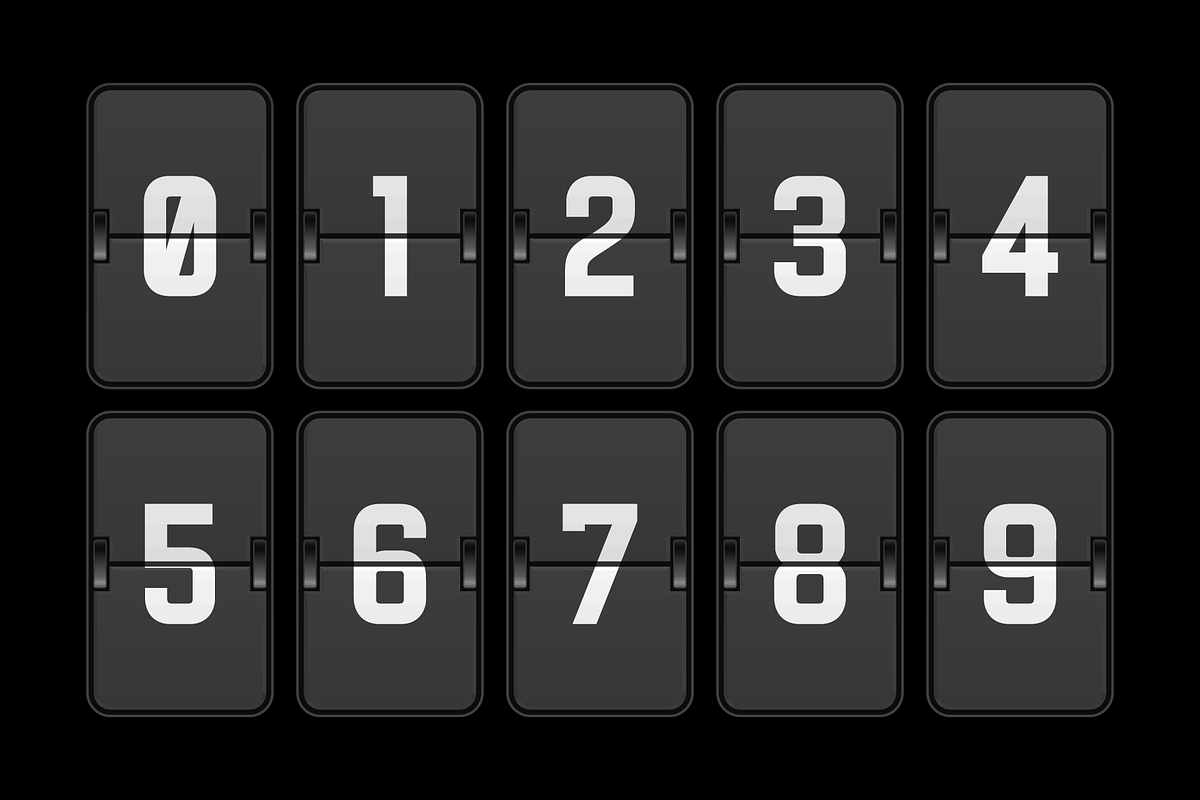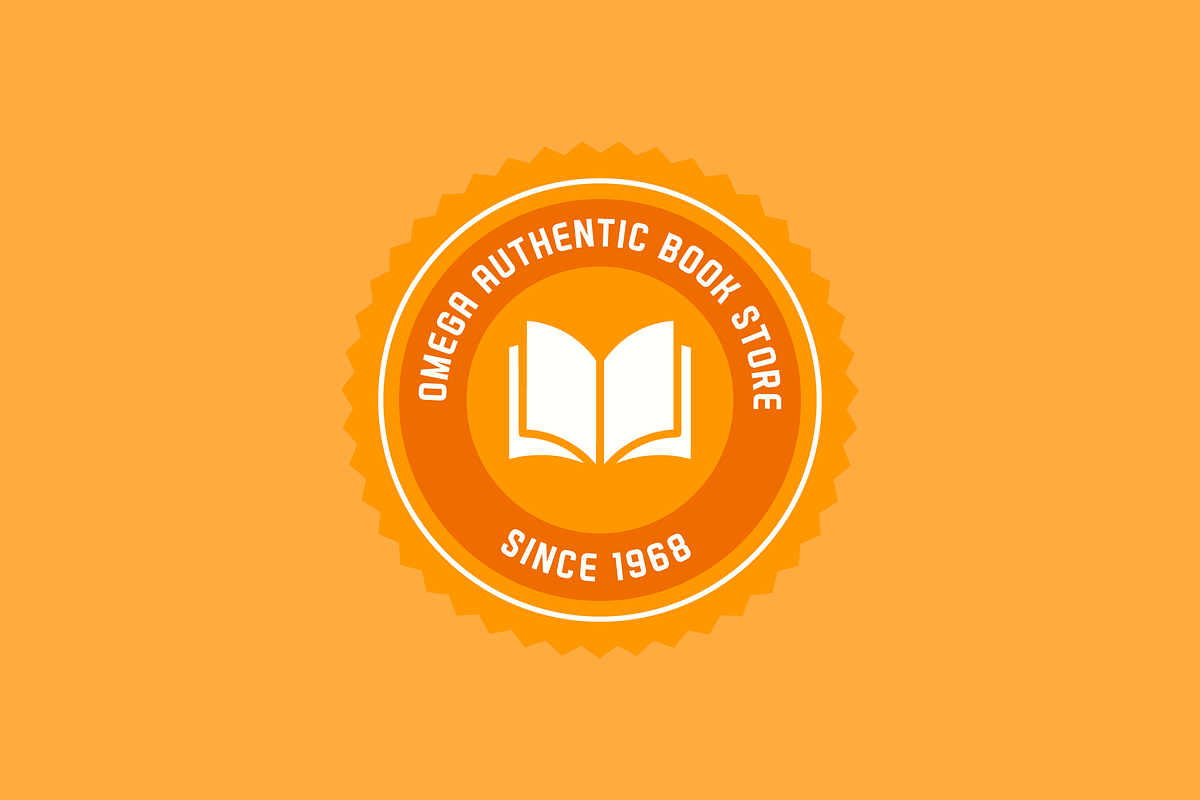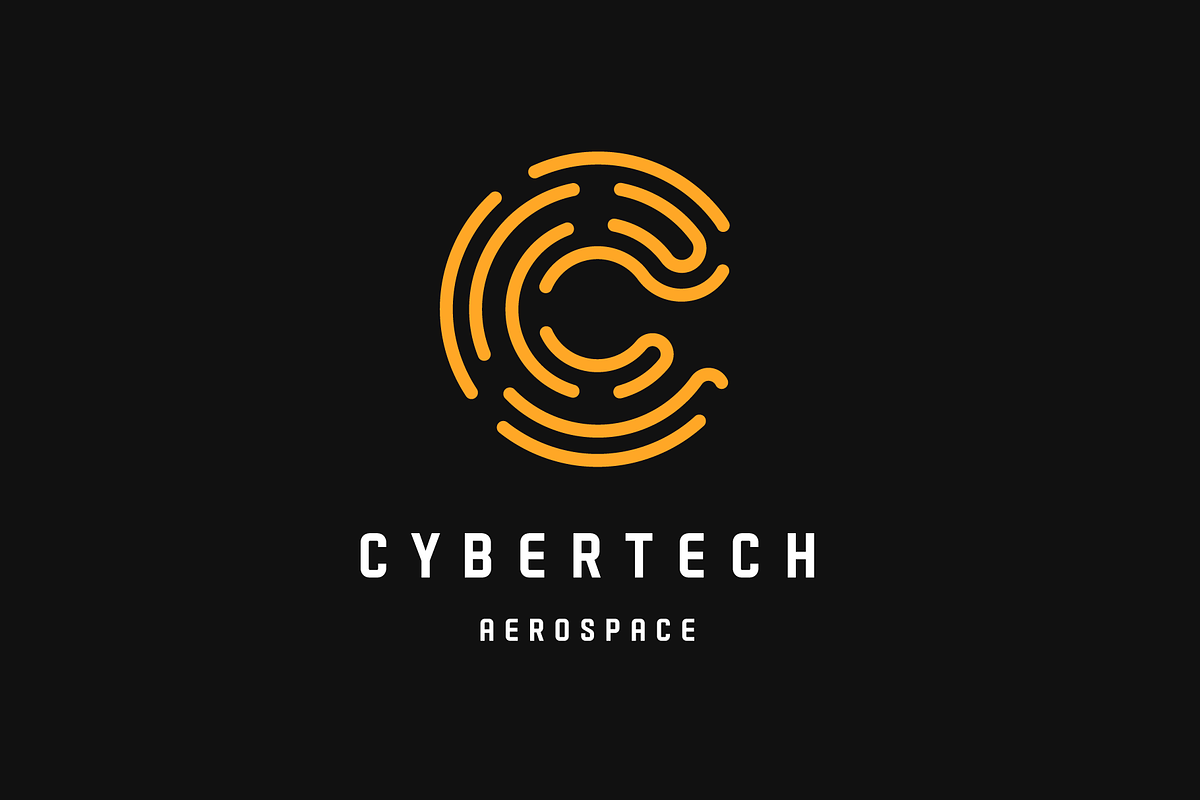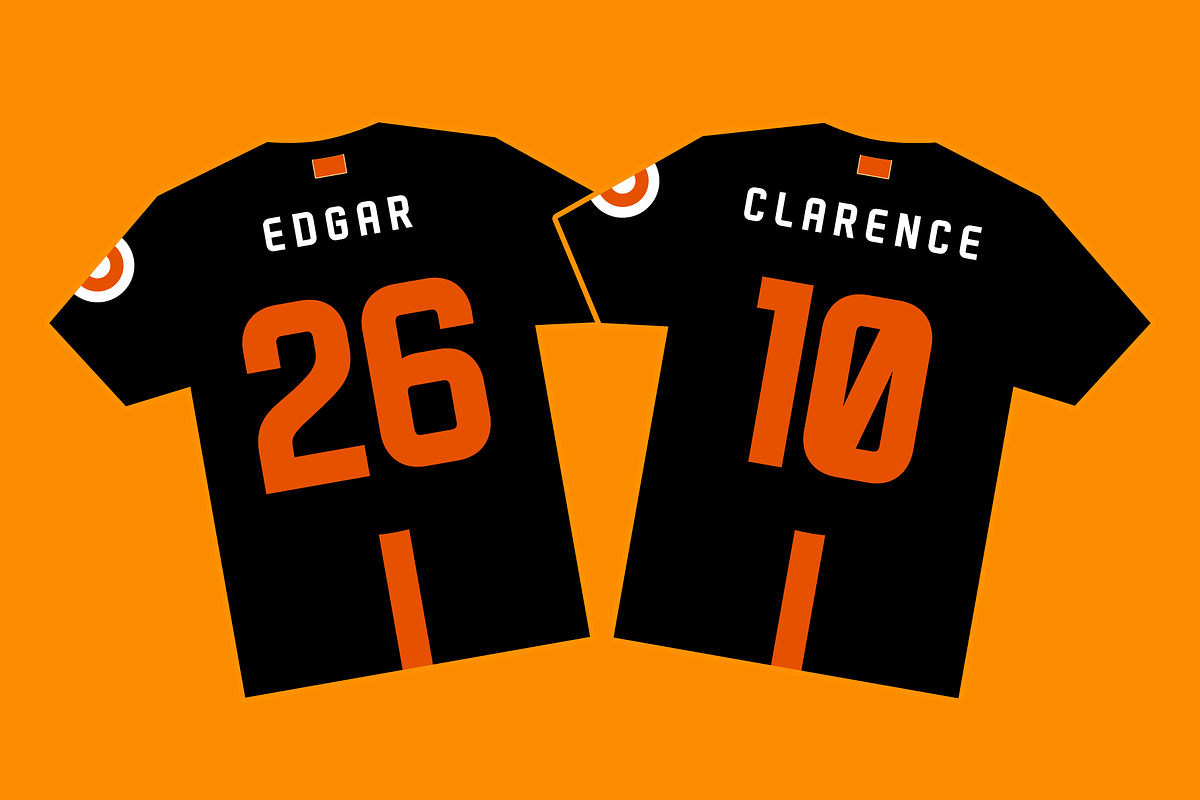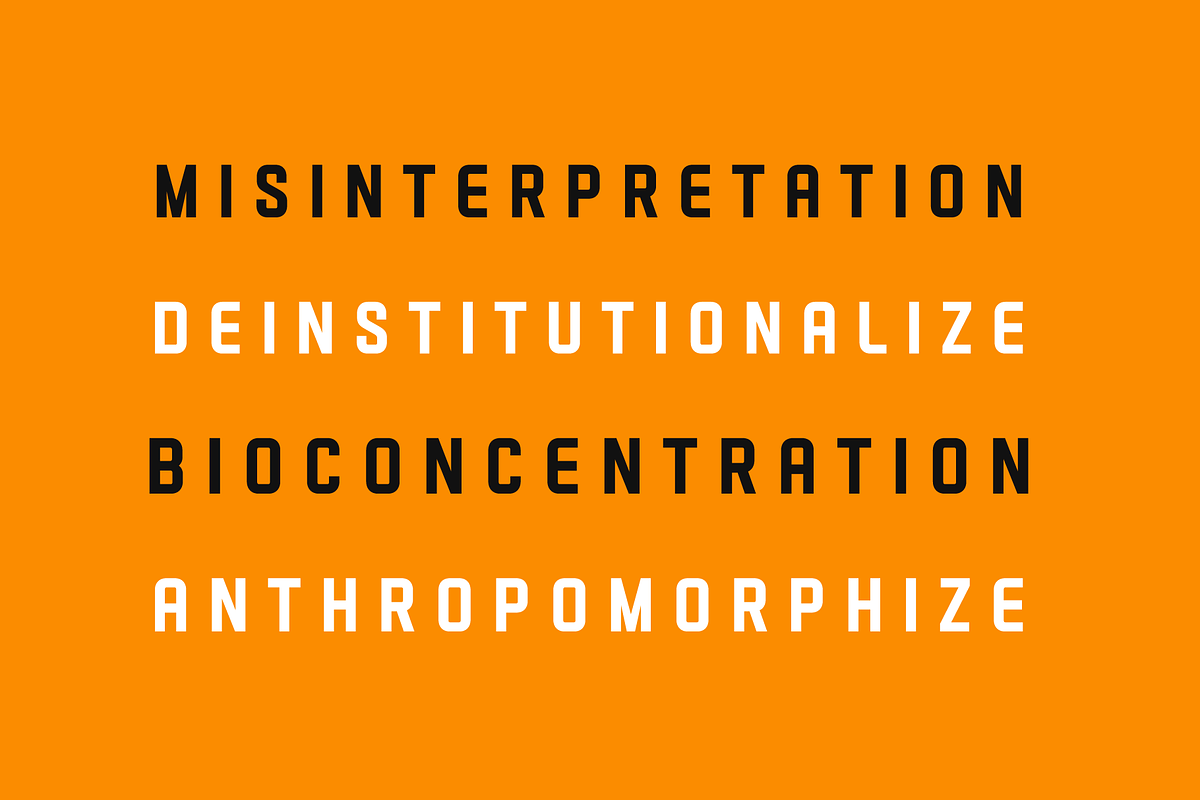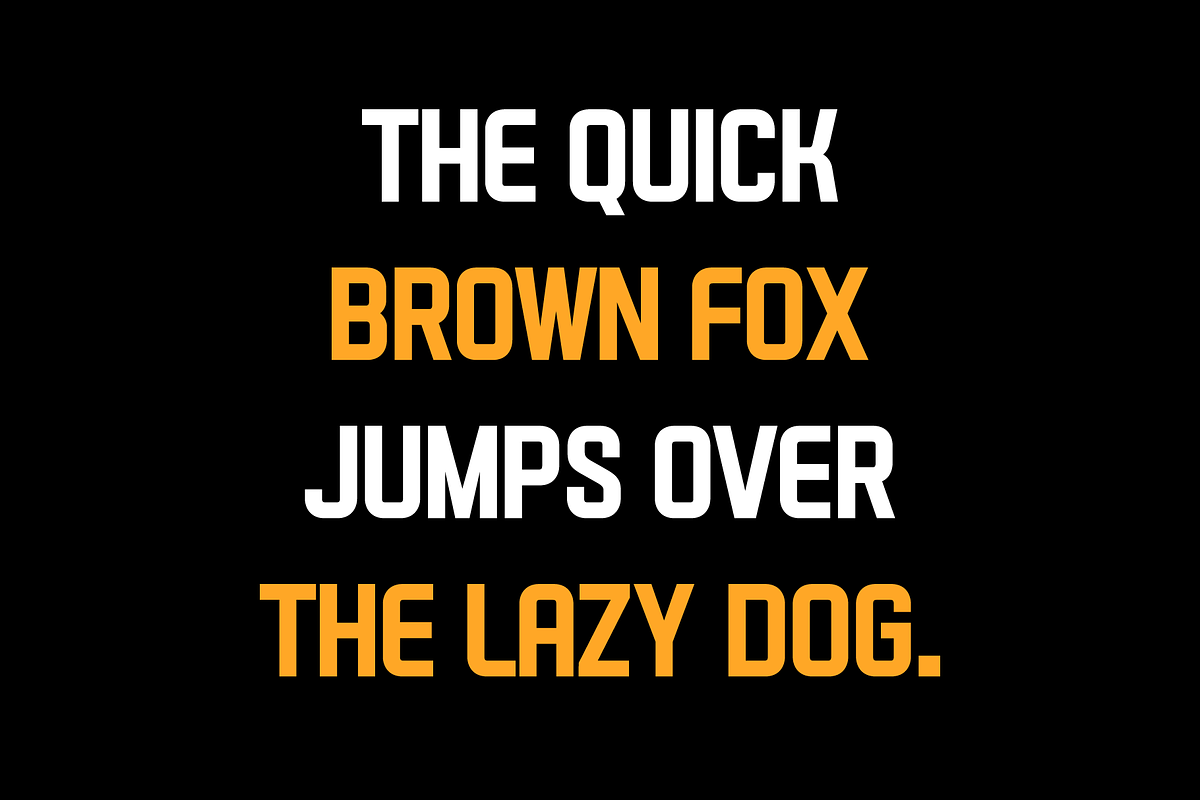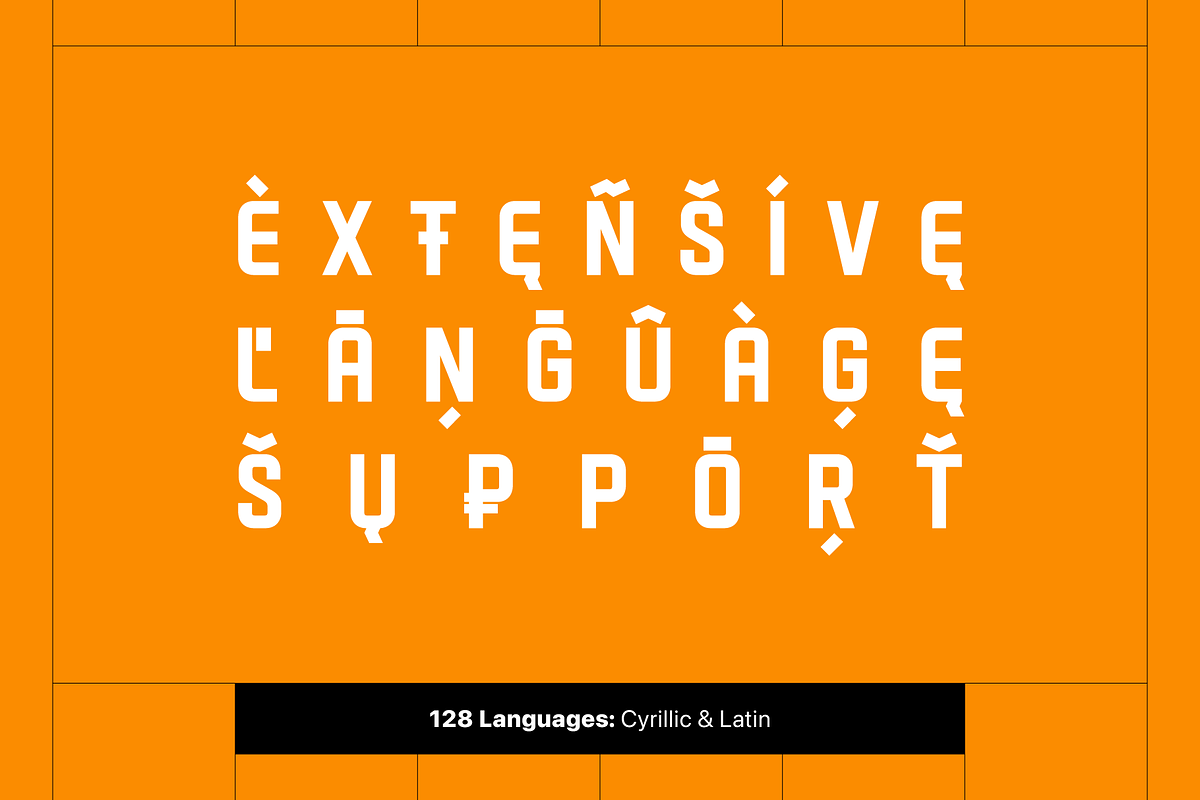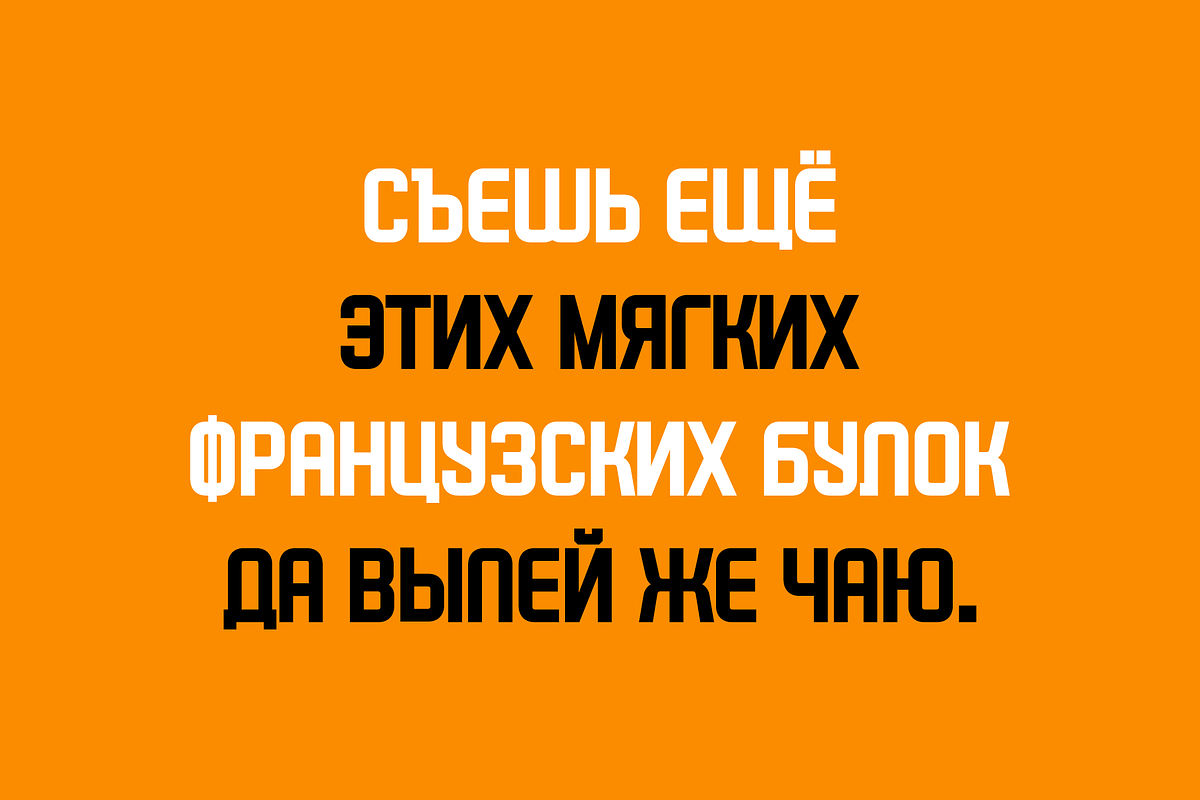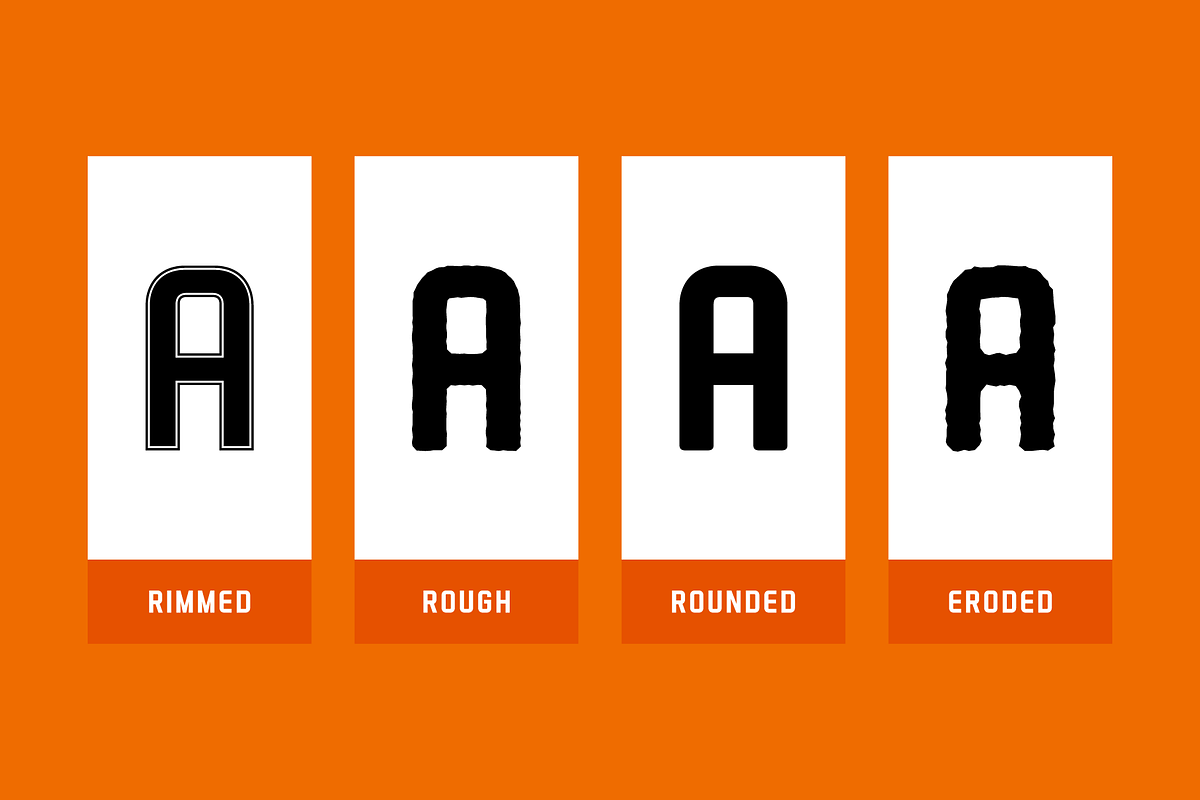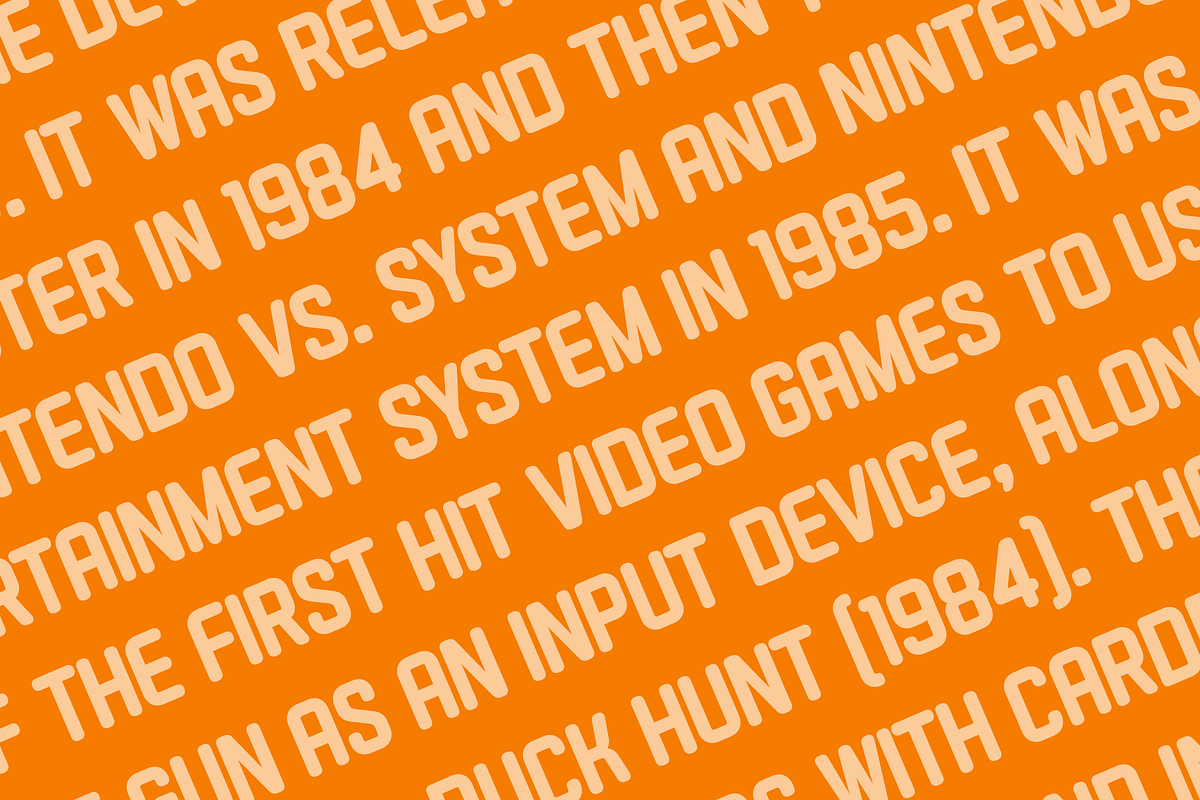
Hurdle - Futuristic Family (58 Font)
Hurdle is a clean, futuristic and cyrillic sans serif font family designed as a flexible system for modern branding, UI, and professional design projects.
Built with precision, balance, and clarity in mind, Hurdle delivers a confident visual voice that works seamlessly across digital and print environments.
Instead of relying on a single style, Hurdle offers a coordinated font family that allows designers to maintain consistency while adapting to different tones, layouts, and use cases—from corporate identities to interfaces, editorial layouts, and product packaging.
Why Choose Hurdle?
- A Versatile Font Family
Designed to function as a system, Hurdle gives you multiple styles that work together harmoniously, helping you build strong and consistent visual identities.
- Modern & Professional Aesthetic
Clean geometry, smooth curves, and balanced proportions create a neutral yet distinctive look suitable for corporate, creative, and tech-driven brands.
- Optimized for Digital & Print
Carefully engineered spacing and structure ensure excellent readability across interfaces, apps, websites, editorial layouts, and large-scale displays.
- Global Language Support
With support for 128 languages, Hurdle enables clear and confident communication for international brands and multilingual projects.